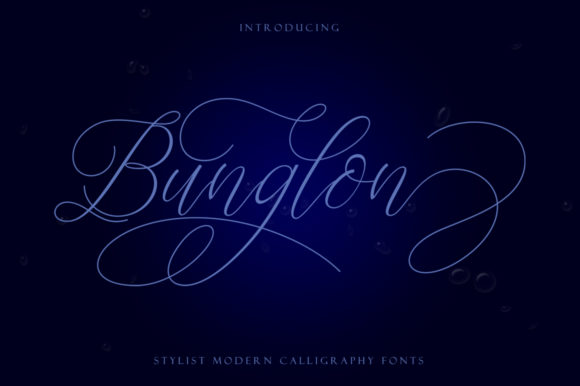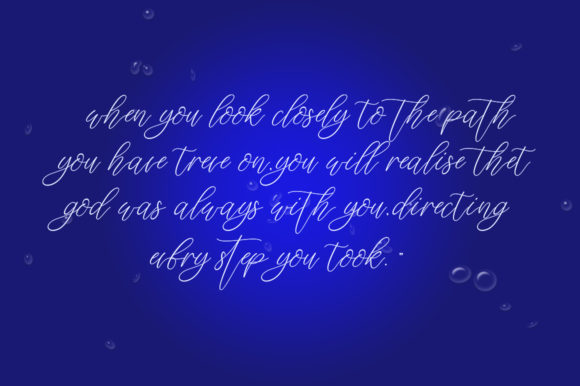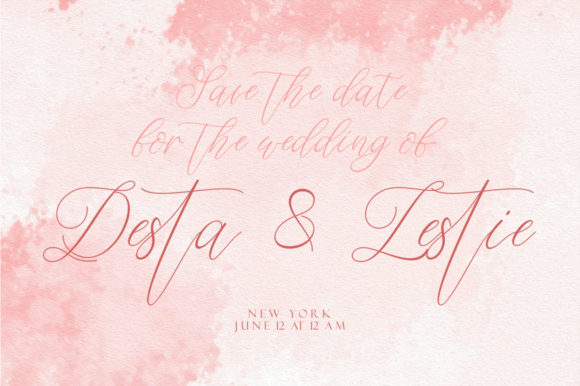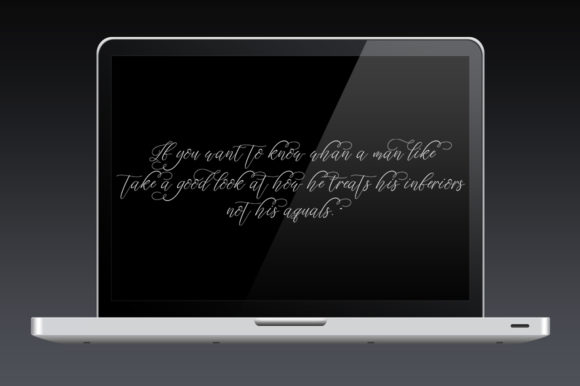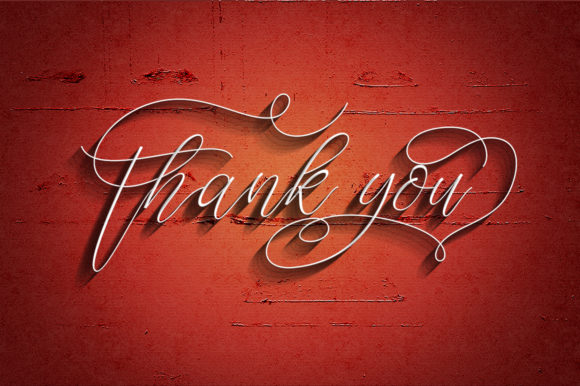
Bunglon Font
About Bunglon Font
Bunglon is a bold, yet playful handwritten font with an amazing twist. It will add a unique spark to any design project.